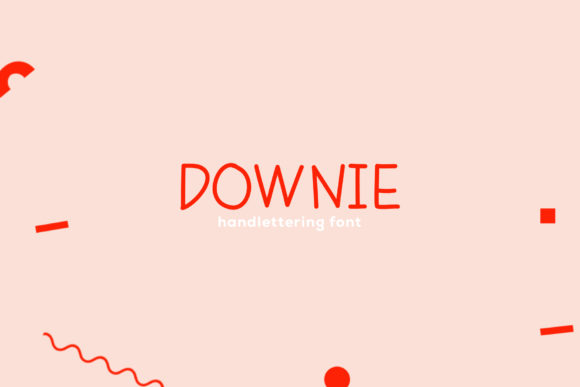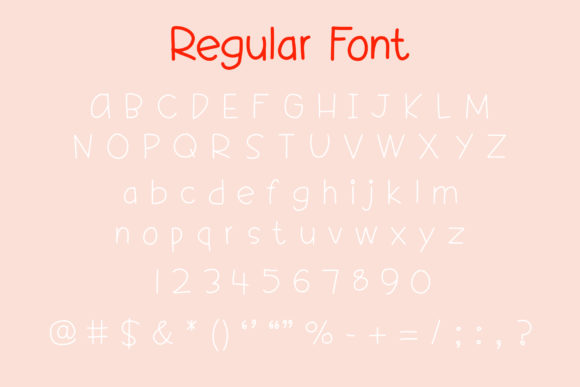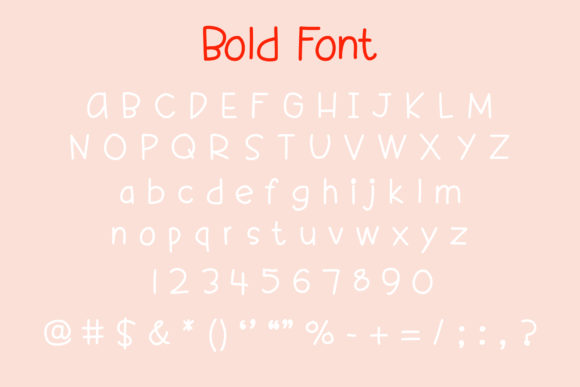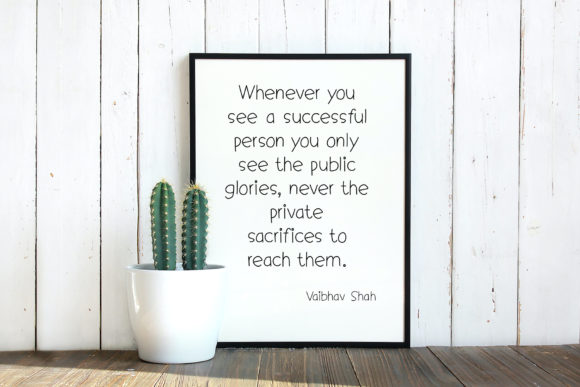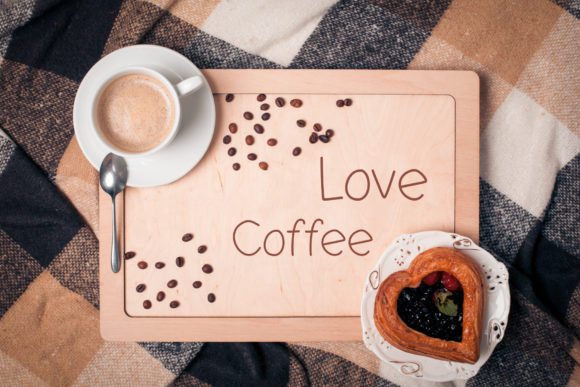
About Downie Font
Downie is a simple and quirky handwritten font. Its natural and unique style makes it incredibly fitting to a large pool of designs. The only limit is your imagination!